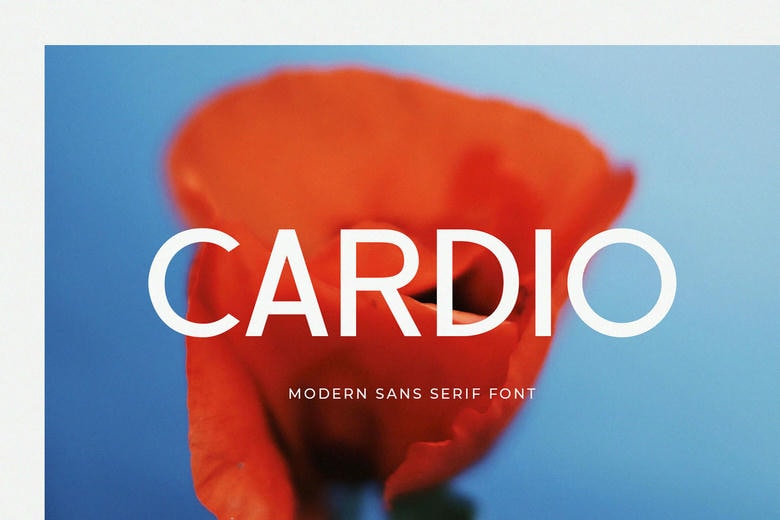
Cardio Font
Cardio is a clean and modern sans serif font with a sleek, minimalist appearance. Designed for versatility, it works seamlessly across digital platforms, brand identity, and advertising layouts. Its geometric precision and open character design make it a go-to font for professionals.
Cardio Sans Serif Font